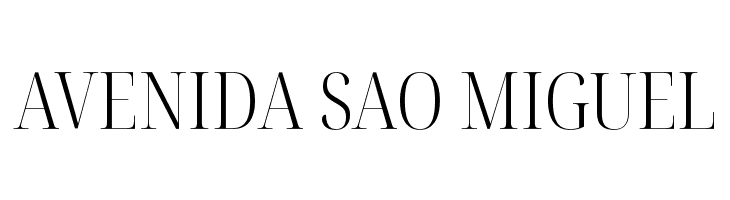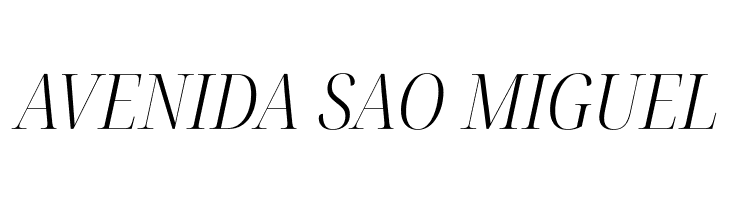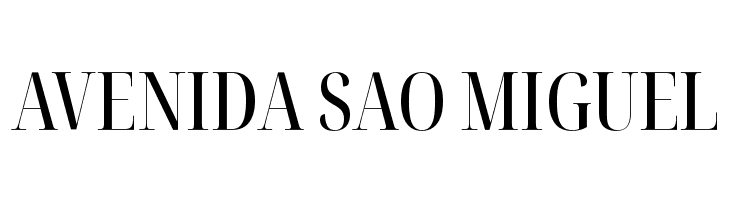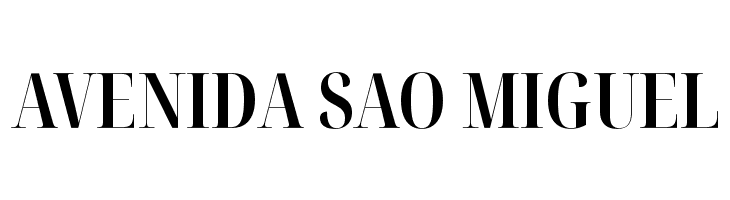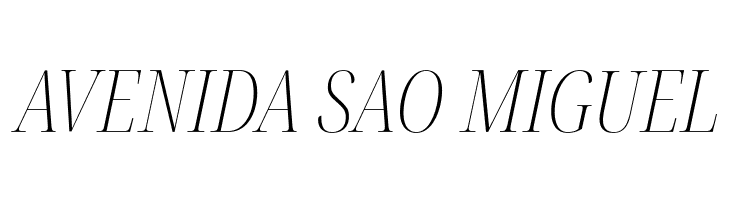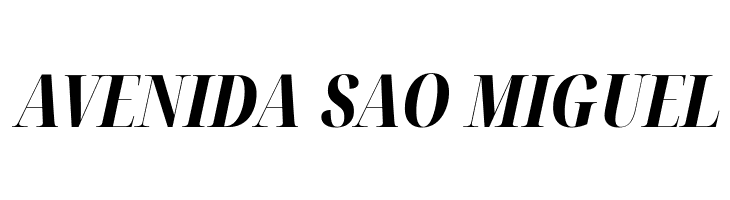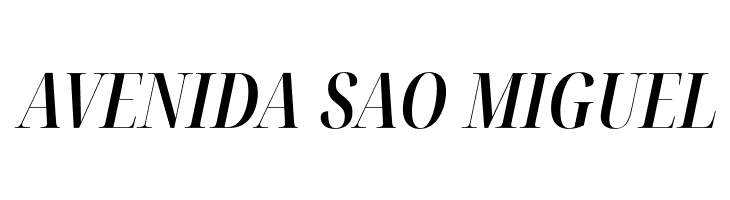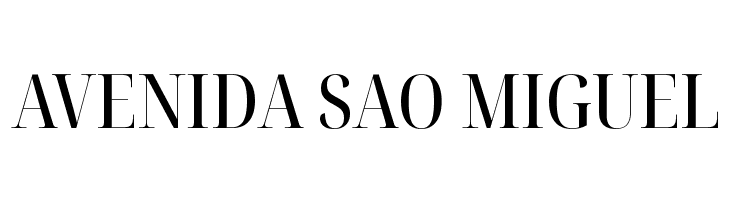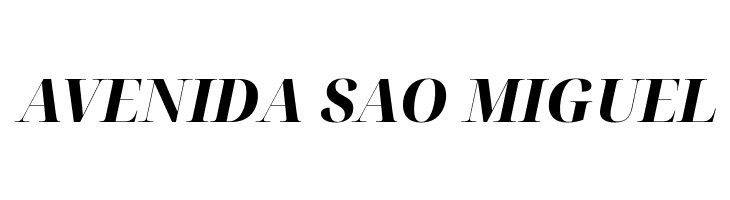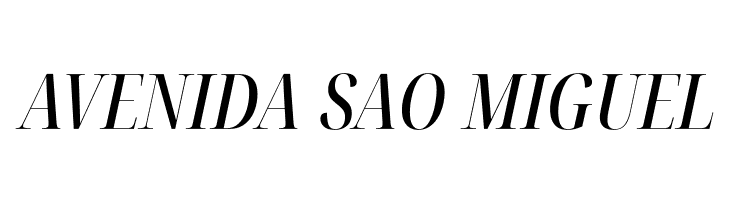
A bold, condensed serif font with an elegant italic slant.
A serif, condensed, extra bold typeface with high contrast, ideal for impactful headlines.
A sophisticated, extra bold, condensed serif font with high contrast and italic style.
A refined, extra-light serif font with a modern, condensed style.
A refined, extra light, italic serif font with high contrast and tight spacing.
An elegant, condensed serif font with italic styling, perfect for sophisticated designs.
A refined, light serif font with a condensed and elegant style.
A refined, condensed serif font with a light, italic style.
A modern, condensed serif font with medium weight and elegant serifs.
Elegant serif font with italic style and high contrast, ideal for modern and sophisticated designs.
A refined serif typeface with high contrast and condensed semi-bold style.
A sophisticated serif font with a condensed, semi-bold italic style.
A refined, thin serif font with high contrast and a condensed style.
A refined, thin, and italic serif font with high contrast and condensed letterforms.
A bold, elegant serif typeface with high contrast and pronounced serifs.
A sophisticated serif font with extra bold weight and italic style, perfect for display use.
An elegant serif typeface with high contrast and extra-condensed width.
A bold, extra-condensed serif font with high contrast and dramatic style.
A sophisticated, extra-condensed italic serif font with high contrast and elegant style.
A bold, extra-condensed serif font with high contrast and sharp serifs.
A refined, extra-condensed serif font with thin strokes and high contrast.
A refined, thin, italic serif font with extra-condensed width and high contrast.
A refined serif font with high contrast and elegant letterforms.